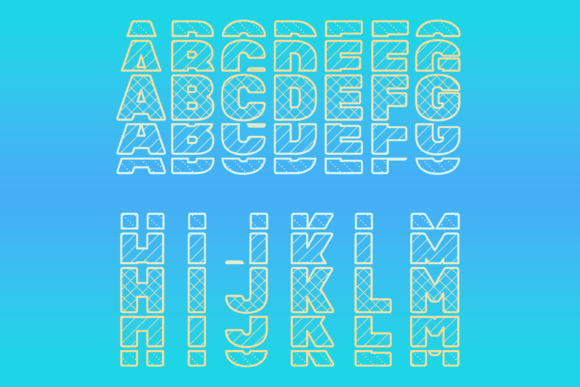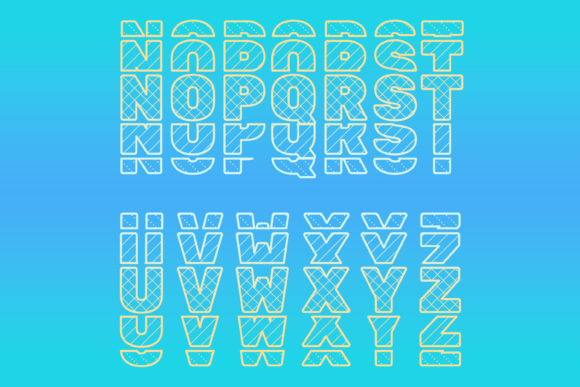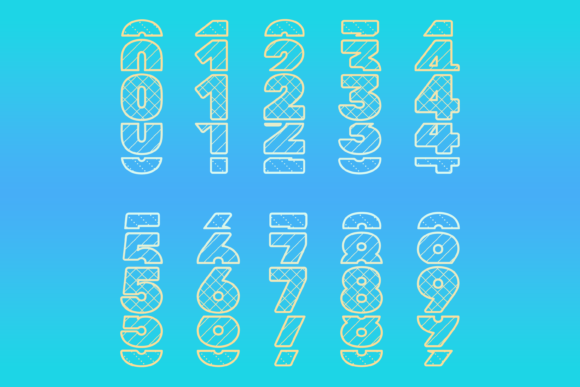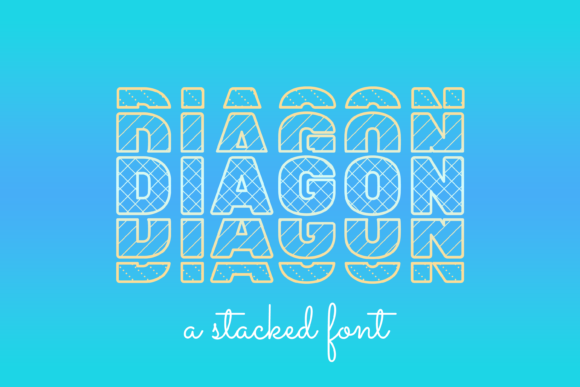
Discover the Magic of Diagon Font: Elevate Your Designs with a Lovely Touch
Diagon Font is an incredibly cool font that has been gaining popularity among designers, crafters, and DIY enthusiasts. Whether you use it for custom designs, DIY crafts, or just any creation that requires a lovely touch, this font will be an amazing choice. In this article, we’ll dive into the world of Diagon Font, exploring its unique features, uses, and benefits.
What is Diagon Font?
Diagon Font is a beautiful, elegant, and highly versatile font that can add a touch of magic to any design or project. Its unique and intricate design makes it stand out from other fonts, making it perfect for a wide range of applications, from crafting and scrapbooking to graphic design and digital art.
Unique Features of Diagon Font
So, what makes Diagon Font so special? Here are some of its unique features:
- Elegant and Refined Design: Diagon Font boasts an elegant and refined design that exudes sophistication and style.
- Intricate Details: The font features intricate details that add a touch of whimsy and charm to any design.
- Highly Versatile: Diagon Font can be used for a wide range of applications, from digital designs to print projects.
- Easy to Read: Despite its intricate design, Diagon Font is easy to read, making it perfect for body text and headings.
Uses of Diagon Font
Diagon Font is an incredibly versatile font that can be used for a wide range of projects, including:
- Custom Designs: Use Diagon Font to create stunning custom designs for social media, blogs, and websites.
- DIY Crafts: Add a personal touch to your DIY crafts, such as scrapbooking, card making, and journaling.
- Graphic Design: Use Diagon Font for graphic design projects, such as brochures, flyers, and posters.
- Digital Art: Incorporate Diagon Font into your digital art projects, such as illustrations and paintings.
Benefits of Using Diagon Font
So, why should you use Diagon Font for your projects? Here are some benefits:
- Adds a Personal Touch: Diagon Font adds a personal touch to any design or project, making it stand out from the crowd.
- Enhances Visual Appeal: The font’s elegant design and intricate details enhance the visual appeal of any project.
Tips for Using Diagon Font
Here are some tips for using Diagon Font effectively:
- Use it Sparingly: Use Diagon Font sparingly to avoid overwhelming your design or project.
- Pair it with Other Fonts: Pair Diagon Font with other fonts to create a unique and visually appealing design.
- Experiment with Colors: Experiment with different colors to find the perfect match for your design or project.
- Have Fun: Most importantly, have fun and be creative with Diagon Font!
In conclusion, Diagon Font is an incredibly cool font that can add a lovely touch to any design or project. Its unique features, versatility, and benefits make it a great choice for designers, crafters, and DIY enthusiasts. Whether you’re looking to create custom designs, DIY crafts, or digital art, Diagon Font is sure to impress. So, go ahead and give it a try – you won’t be disappointed!